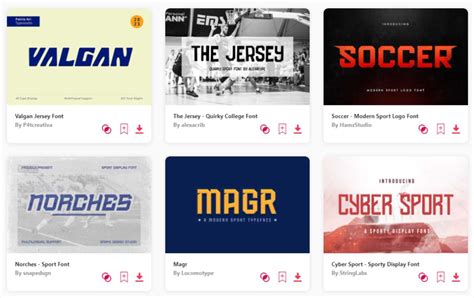
Unveiling The Best Football Jersey Number Fonts
Hey sports fanatics! Ever wondered what makes a football jersey pop? Sure, the team colors and logo are crucial, but let’s be real, the number font is the unsung hero. It’s the silent statement, the visual shout-out that tells you who’s who on the field. Choosing the right football jersey number font can make or break the look, feel, and even the legacy of a team. In this article, we’re diving deep into the world of football jersey number fonts , exploring the best options, and giving you the lowdown on how to pick the perfect one for your team or personal jersey. Get ready to level up your jersey game, guys!
The Significance of Football Jersey Number Fonts
Alright, let’s kick things off by understanding why football jersey number fonts are such a big deal. Think about it: when you see a jersey, the number is often the first thing your eyes are drawn to. It’s a quick identifier, telling you who’s about to make that game-winning catch or deliver a bone-crushing tackle. The font isn’t just a random choice; it’s a reflection of the team’s identity, history, and even its ambitions. A strong, bold font might scream power and dominance, while a sleek, modern font could hint at innovation and a forward-thinking approach. The right football jersey number font can instantly convey a team’s personality, setting the tone for their performance both on and off the field. Also, consider the readability. In the heat of the game, with players zipping around, a clear, easily identifiable number is crucial for referees, commentators, and fans alike. A poorly chosen font can lead to confusion, misidentification, and ultimately, a less enjoyable viewing experience. It’s like choosing the right shoes for a marathon; the wrong choice can lead to discomfort and hinder performance. The font’s design should harmonize with the jersey’s overall aesthetic, from the team’s logo to the color scheme. This holistic approach ensures the jersey looks professional, cohesive, and visually appealing. Imagine a team with a retro logo but a futuristic font; it would clash, right? The football jersey number font needs to be consistent with the team’s branding, creating a unified and recognizable image.
Top Football Jersey Number Font Styles
Now, let’s get into the nitty-gritty and explore some of the best football jersey number fonts out there. We’ll look at the classics, modern favorites, and some unique options to get your creative juices flowing.
Classic and Bold Fonts
These fonts are the workhorses of the football world, known for their readability and timeless appeal. They often feature strong, blocky designs that are easy to see from a distance. Think of the iconic fonts used by teams like the Green Bay Packers or the Dallas Cowboys – instantly recognizable and steeped in tradition. Impact is a popular choice due to its thick, bold appearance, perfect for making a statement. CollegeBlock is another favorite, evoking a classic collegiate feel, often seen on high school and college jerseys. These fonts are all about making a statement, about conveying power, strength, and a sense of history. They’re perfect for teams that want to project a sense of authority and tradition. They are typically used with a shadow or outline, which will emphasize the number. Another advantage is their legibility in various conditions. Whether under bright stadium lights or in less-than-ideal weather, these bold fonts remain clear and distinct, ensuring players are easily identifiable.
Modern and Sleek Fonts
If you’re aiming for a more contemporary look, these fonts are your go-to. They often feature clean lines, a minimalist approach, and a sense of forward-thinking design. They’re all about innovation, creativity, and a fresh take on the classic jersey aesthetic. Fonts like Roboto or Helvetica Neue are excellent choices for a modern feel. They often work well with geometric shapes and bold color schemes. Teams looking to establish themselves as cutting-edge or appeal to a younger demographic might gravitate towards these options. The advantage of these fonts is their versatility. They can be easily adapted to different jersey designs and color palettes, making them a great choice for teams looking to experiment with their look. They can also create a perception of speed and agility, which can resonate well with fans who appreciate a fast-paced game. They’re ideal for teams that want to showcase their modern values and aspirations.
Unique and Custom Fonts
Want to stand out from the crowd? These fonts offer a personalized touch, allowing teams to create a truly unique identity. They’re a great way to express creativity and individuality. You can even design your own font or work with a graphic designer to create something exclusive to your team. Teams that go this route usually have a strong brand identity and are not afraid to stand out. Custom fonts require more investment, but the payoff can be huge in terms of brand recognition and memorability. They often incorporate elements of the team’s logo or the city’s landmarks, creating a cohesive and visually striking design. It’s about crafting something that is immediately recognizable and represents the team’s unique character. When considering this option, you should think about your target audience and the message you want to send. The possibilities are endless, and you can create a memorable look that will leave a lasting impression on fans.
Factors to Consider When Choosing a Font
Choosing the right football jersey number font is more than just picking a font you like; it involves considering several key factors to ensure it suits your team’s needs and branding goals.
Readability
This is the most important factor. The font needs to be easily readable from a distance, even when the players are in motion. Avoid fonts that are too intricate or stylized, as they can become difficult to decipher quickly. Choose fonts that have clear, distinct numbers that are easily distinguishable, even in low-light conditions. Ensure the font contrasts well with the jersey’s color, making the numbers pop. A good rule of thumb is to test the font on a sample jersey and see how it looks from different angles and distances.
Team Identity
Does the font align with your team’s image and values? Does it reflect your team’s history, the city or region you’re from, and the message you want to convey? The font should be consistent with your logo, colors, and overall brand identity. If you’re going for a classic look, stick with traditional fonts. If you want a modern feel, choose sleek and contemporary options. Make sure the font is memorable and recognizable, so it becomes a part of your team’s visual language.
Durability
Consider how the font will hold up over time. Will it withstand the wear and tear of games and practices? The font should be durable and resistant to fading, cracking, or peeling. If you’re using heat transfer vinyl, ensure the font is compatible with the material. Digitally printed jerseys offer more durability, making them a good option for custom fonts. Choose materials and printing methods that can withstand the rigors of the game and maintain their appearance season after season. The font is the centerpiece of the jersey, so it is important to select high-quality materials and printing techniques.
Final Thoughts
Choosing the right football jersey number font is an essential step in creating a winning look for your team. By considering factors like readability, team identity, and durability, and by exploring the variety of font styles available, you can create a jersey that stands out. Remember to choose a font that fits your team’s personality, and that will look great on the field. Good luck, and go make some winning choices!